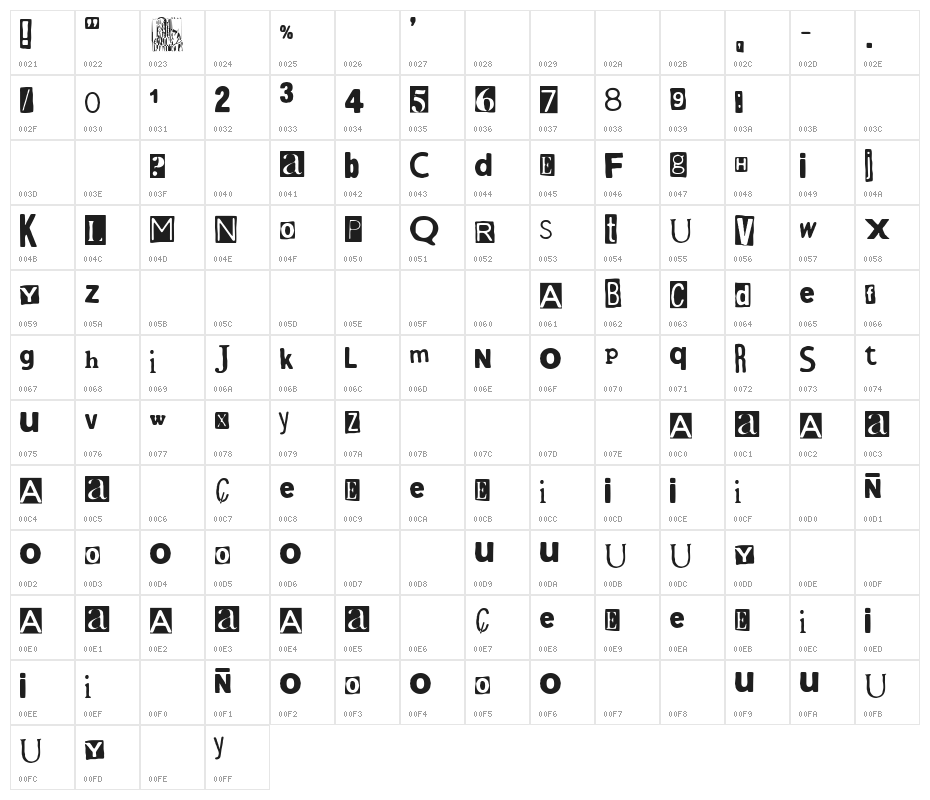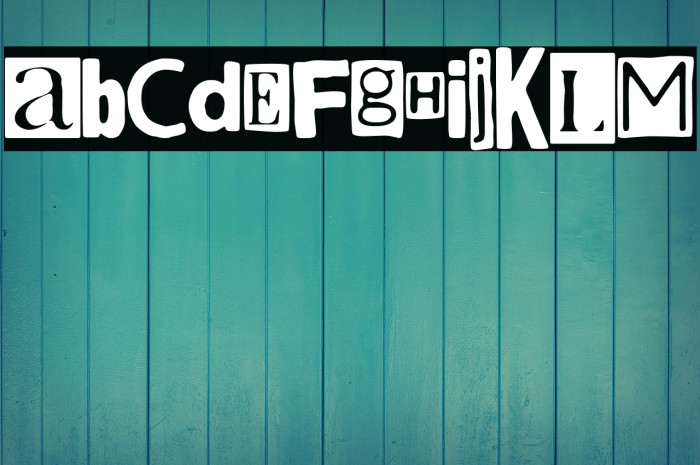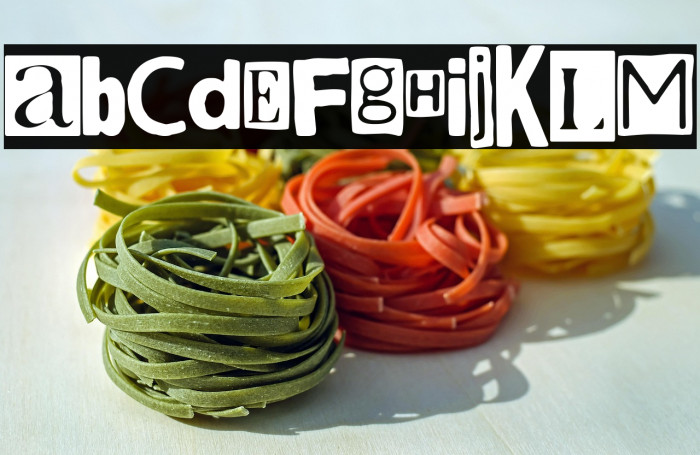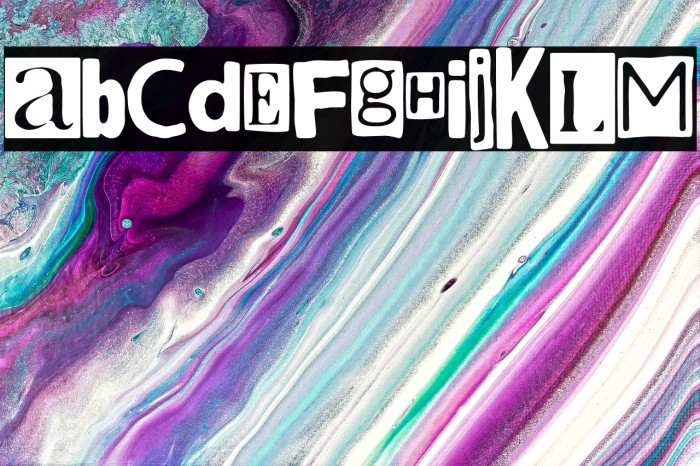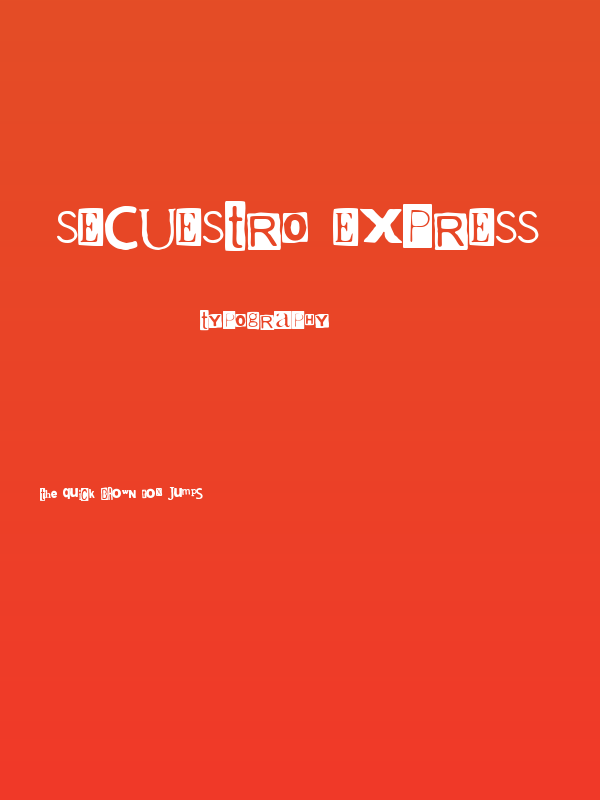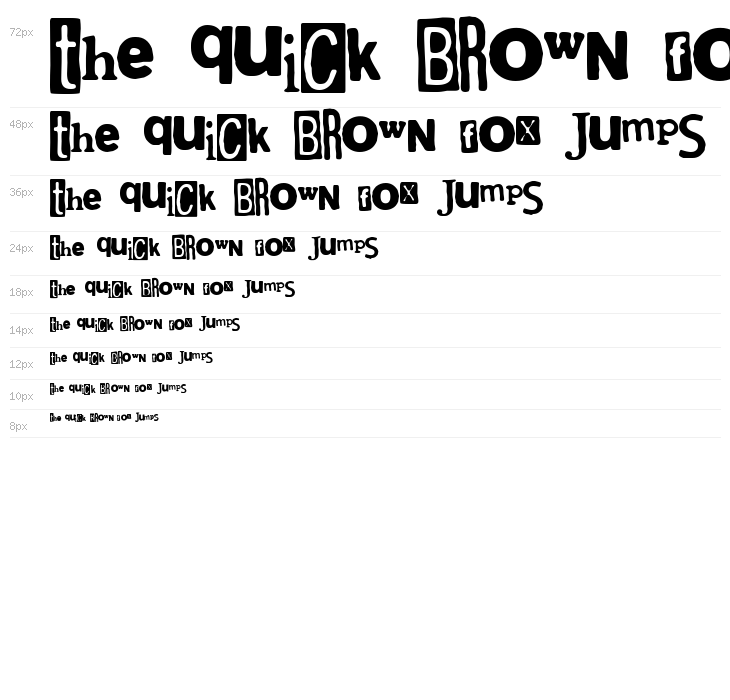
Secuestro Express Font
Secuestro Express Description
This font features a playful and eclectic style, with each character appearing as if it has been cut out from different sources and pasted together. The letters vary in size and shape, creating a dynamic and visually engaging appearance. The uppercase and lowercase letters are mixed in style, with some characters enclosed in boxes, adding to the ransom note aesthetic. The numbers and special characters follow the same quirky and mismatched design, enhancing the overall theme. This font is bold and attention-grabbing, making it ideal for creative and unconventional projects.
| Use Case | Headlines, Posters, Creative Designs |
| Proposed Projects | Ideal for creative projects such as posters, album covers, and event flyers that require a bold and unconventional look. |